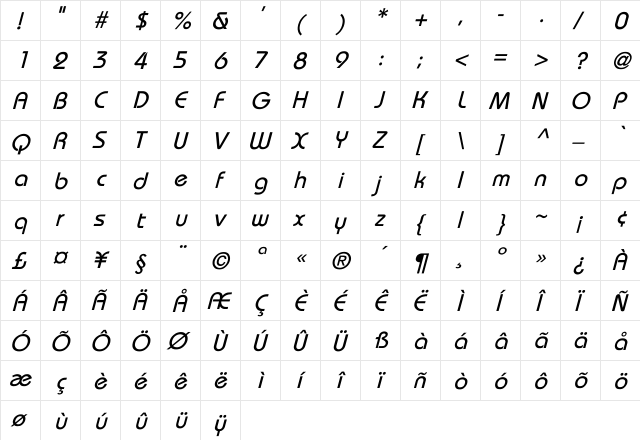
Ambrose Italic Italic
Design Context for Ambrose Italic Typeface
Ambrose Italic takes a measured approach to typography — its balanced proportions and neutral character make it a reliable workhorse for both digital and print work. The slanted form adds forward momentum and visual energy.
Pro Tip: Try Ambrose Italic for annotation and caption copy alongside an upright companion — the contrast in angle creates a dynamic but ordered typographic system.